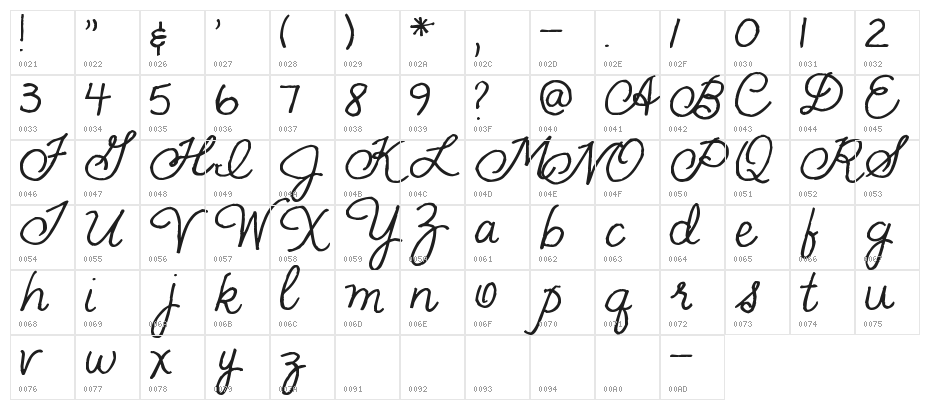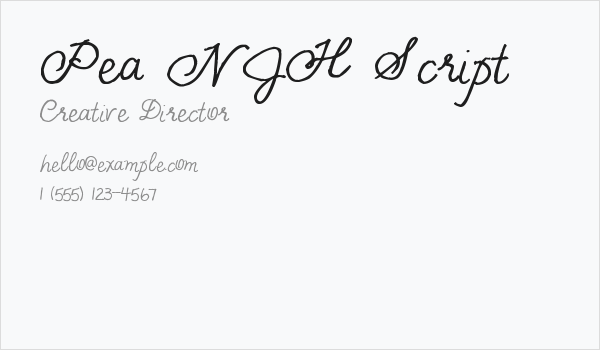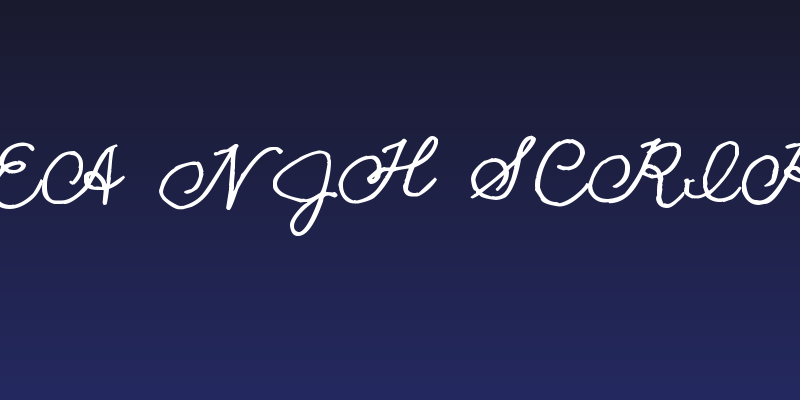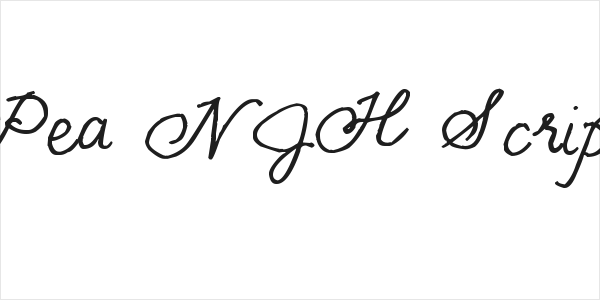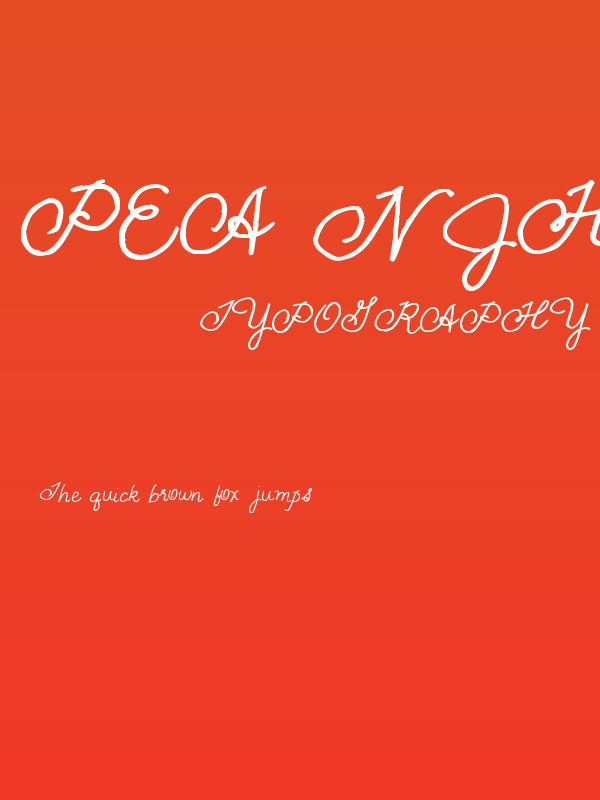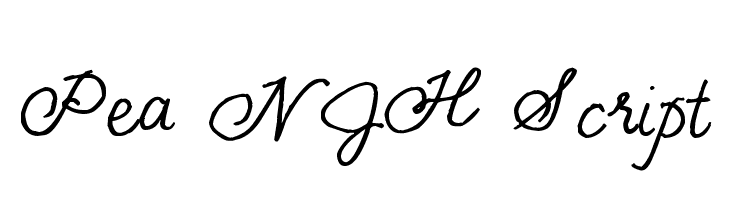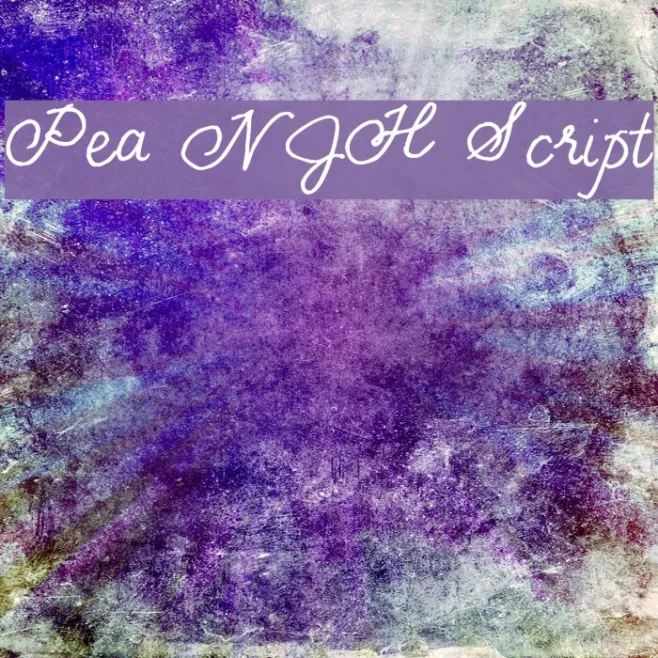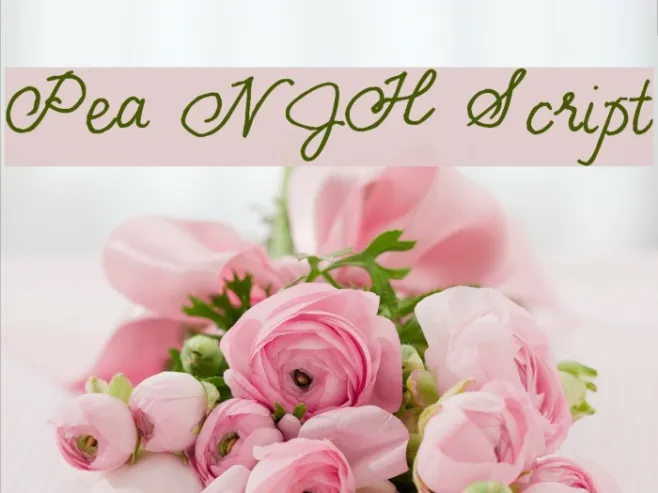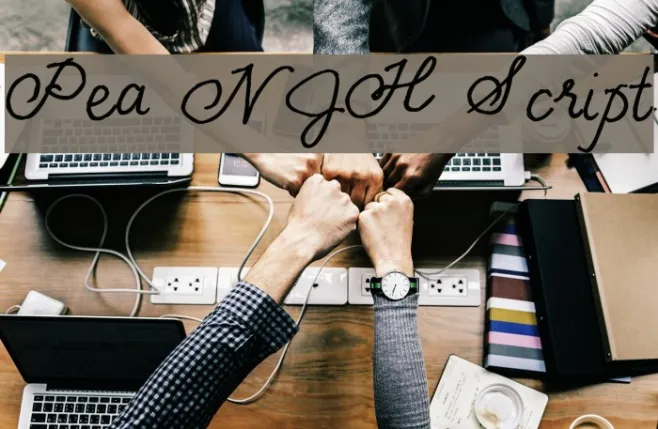
Pea NJH Script Font
Pea NJH Script Description
This font features a playful and casual script style, characterized by its flowing and connected letterforms. The uppercase letters exhibit a graceful, looping design, while the lowercase letters maintain a consistent, handwritten appearance. The numerals are bold and slightly rounded, complementing the overall style. Special characters are integrated seamlessly, adding to the font's versatility. The font's informal and friendly aesthetic makes it suitable for a variety of creative projects.